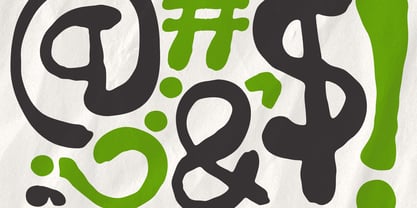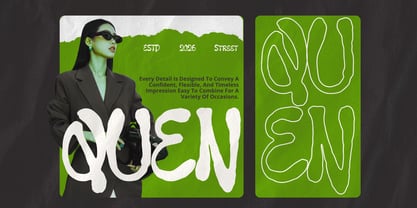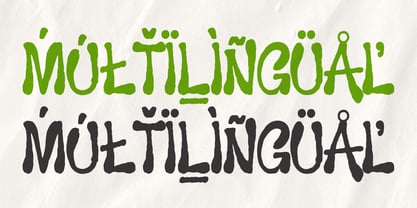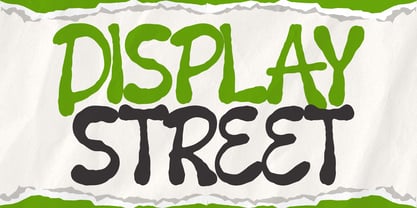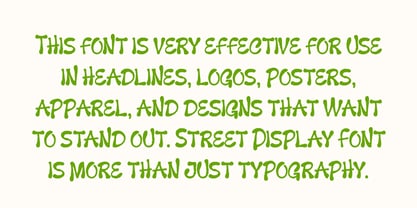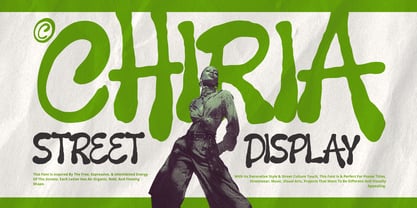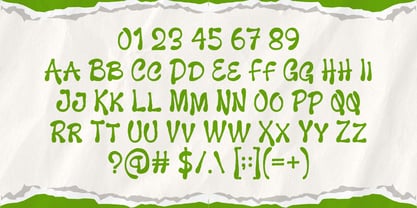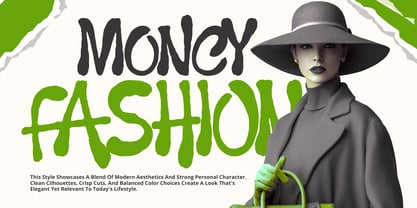
Chiria
Die Schriftfamilie Chiria wurde von Gilang Ternadho entworfen und von Maikohatta veröffentlicht. Chiria enthält 1 Stile. Mehr über diese Familie
Introducing our new product Chiria – Street Decorative Display Font Chiria is a bold, decorative street-style font inspired by urban culture, graffiti art, and the raw energy of street expression. Featuring organic brushstrokes and dynamic letterforms, this font delivers a strong, expressive, and rebellious visual style. Each character feels hand-drawn, giving the design a strong personality and eye-catching impact. Chiria is perfect for posters, streetwear branding, music covers, logos, headlines, social media graphics, and creative projects that want to stand out with a modern, urban attitude. Its decorative style makes it ideal for bold statements and visually striking designs.